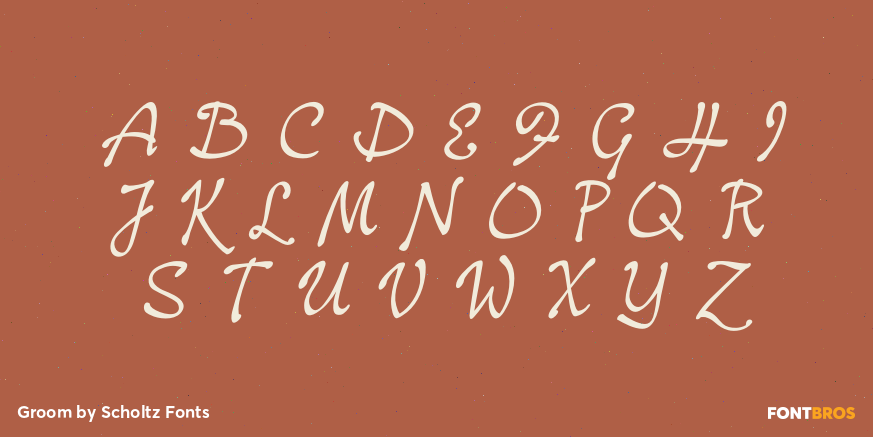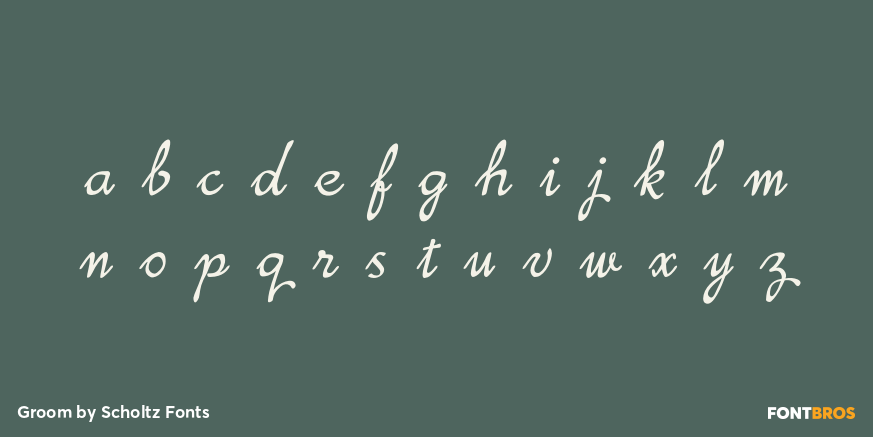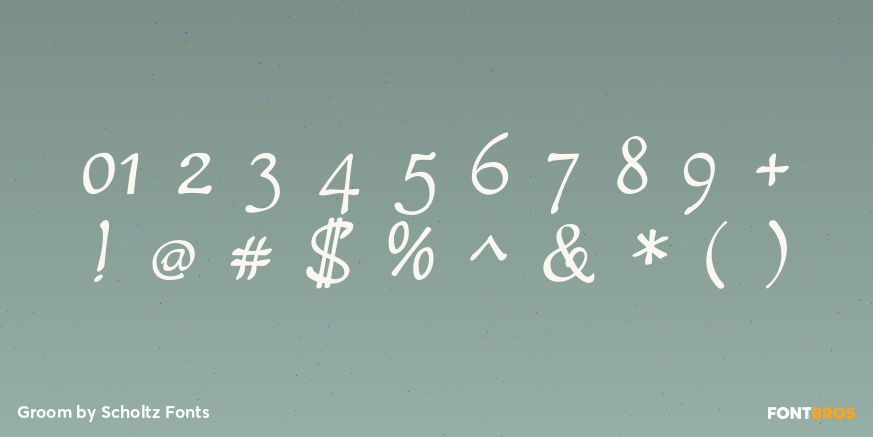
Groom
Font Family by Scholtz Fonts
Groom is a a casual brush script refined and developed from handwritten letters. It combines dramatic though readable caps with more readable, smoothly connecting and more formal lowercase to give a script that is both confident and legible.